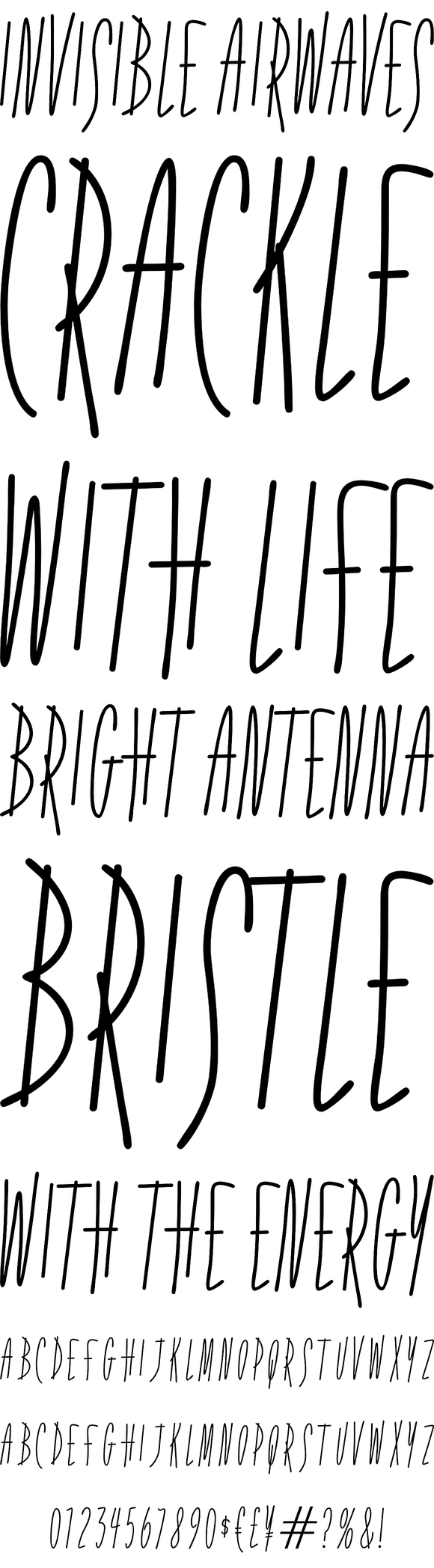
Fidelity Hour
Fidelity Hour is a tall and narrow all caps handwritten typeface that screams retro inspiration. This high-fidelity typestyle comes with various weights and shadow variants.